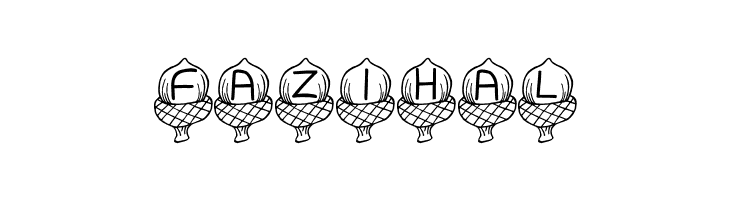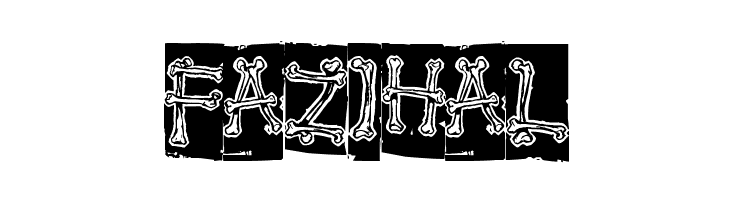
A whimsical, acorn-themed decorative font with uppercase letters.
A jagged, gothic-style font with thorn-like accents, ideal for dramatic themes.
A dripping, grotesque font ideal for spooky themes.
A decorative font with characters designed to look like bones, perfect for spooky themes.
A bold, decorative font with stars and stripes, ideal for patriotic themes.
A playful font styled like domino tiles with dots and tilted characters.
A decorative set of panda-themed illustrations in place of traditional characters.
A spooky, dripping font ideal for horror themes.
A medieval-inspired font with sharp serifs and a distressed texture, perfect for fantasy themes.
A decorative font featuring unique skull designs for each character.
A bold, distressed font with a horror-themed, eerie aesthetic.
A bold, nautical-themed font with playful, three-dimensional characters.
A bold, horror-themed font with dripping, jagged letters.